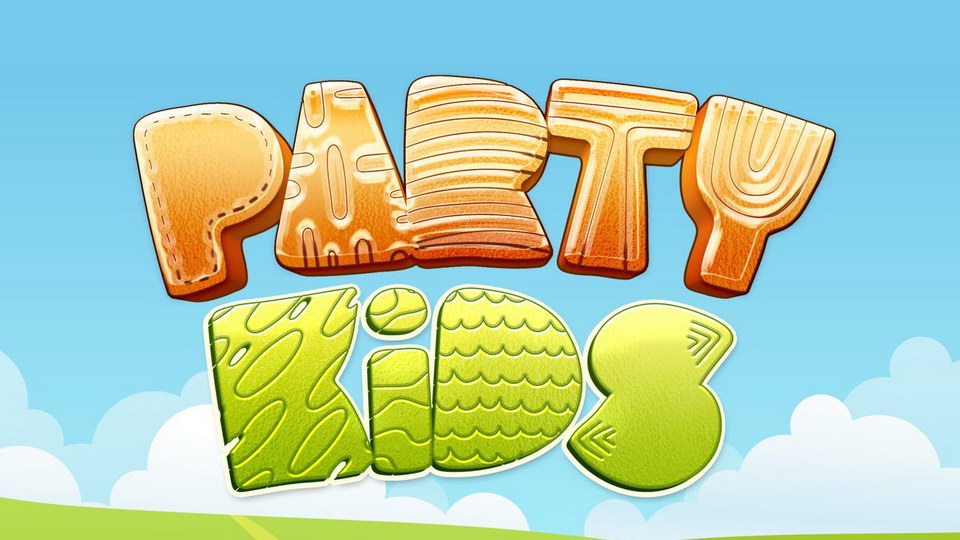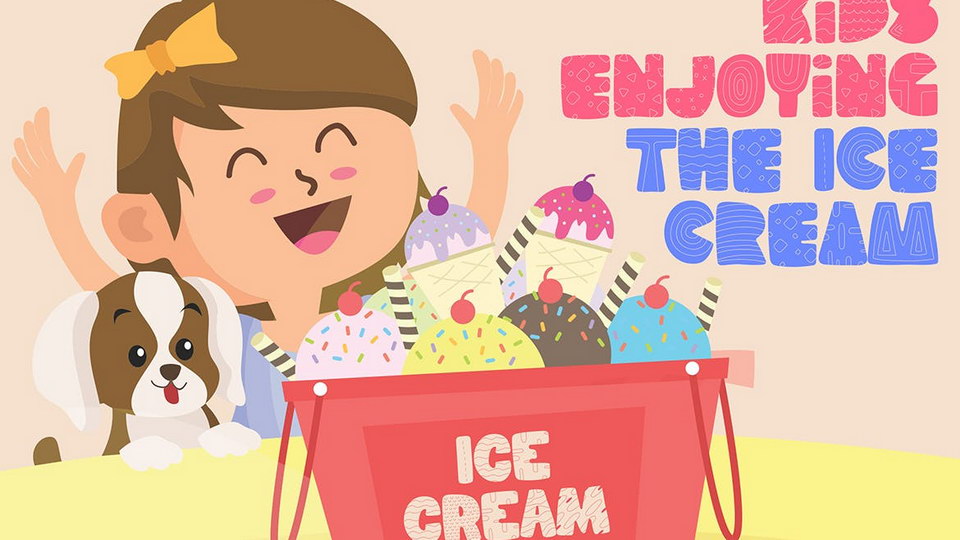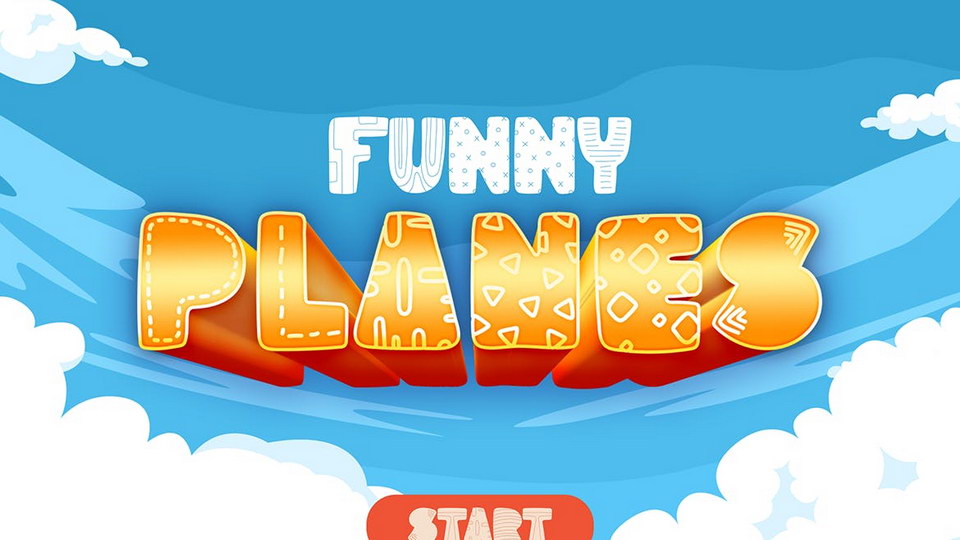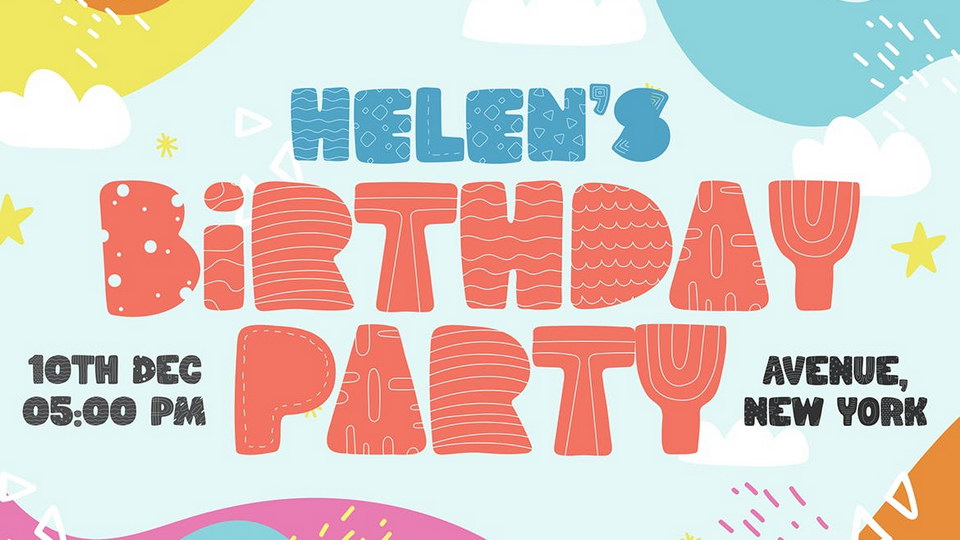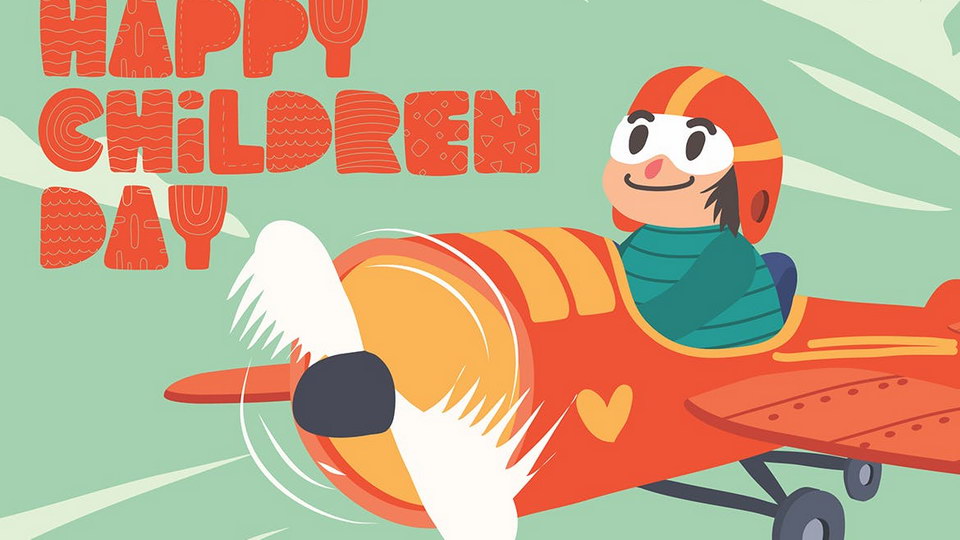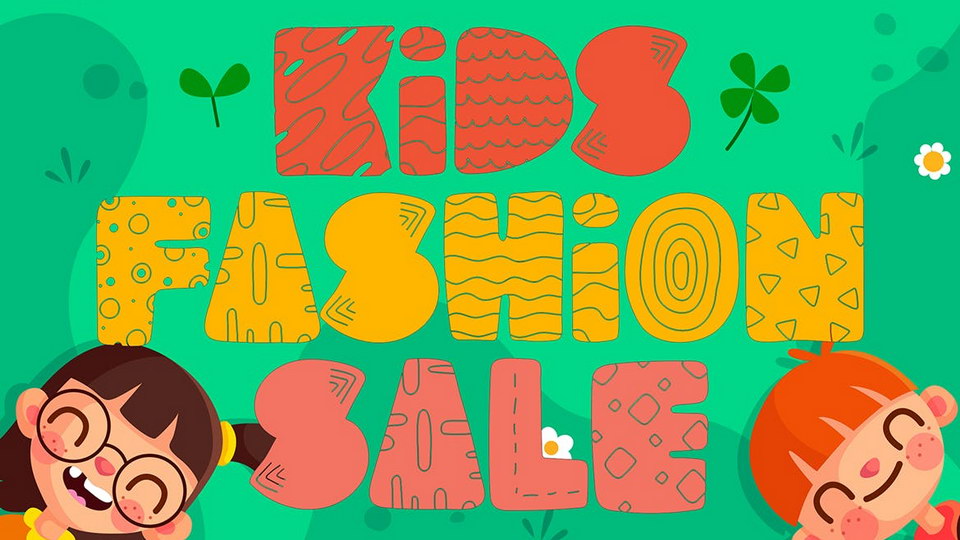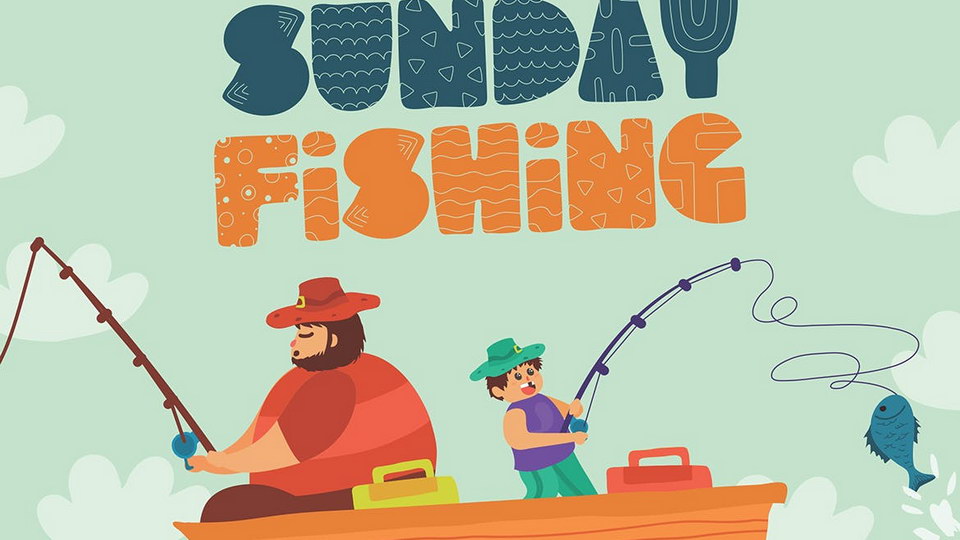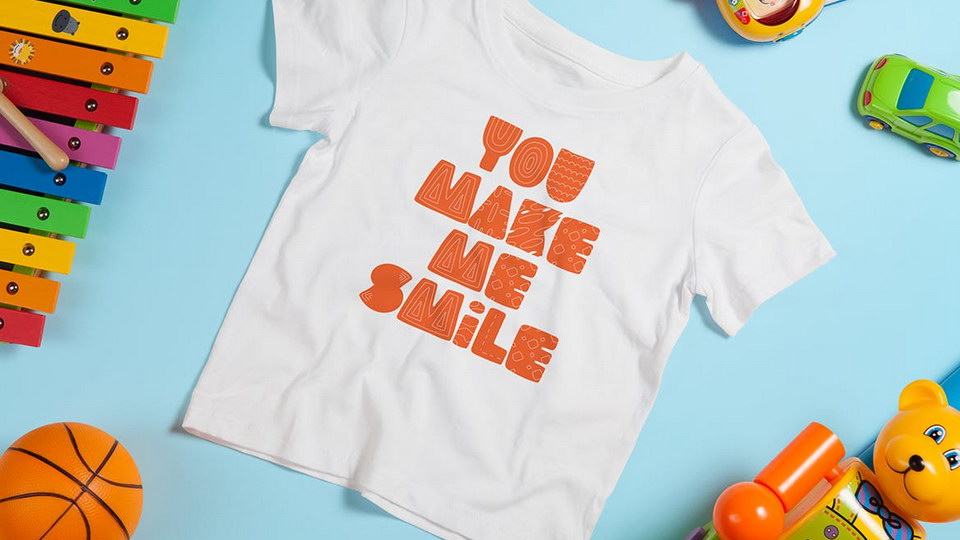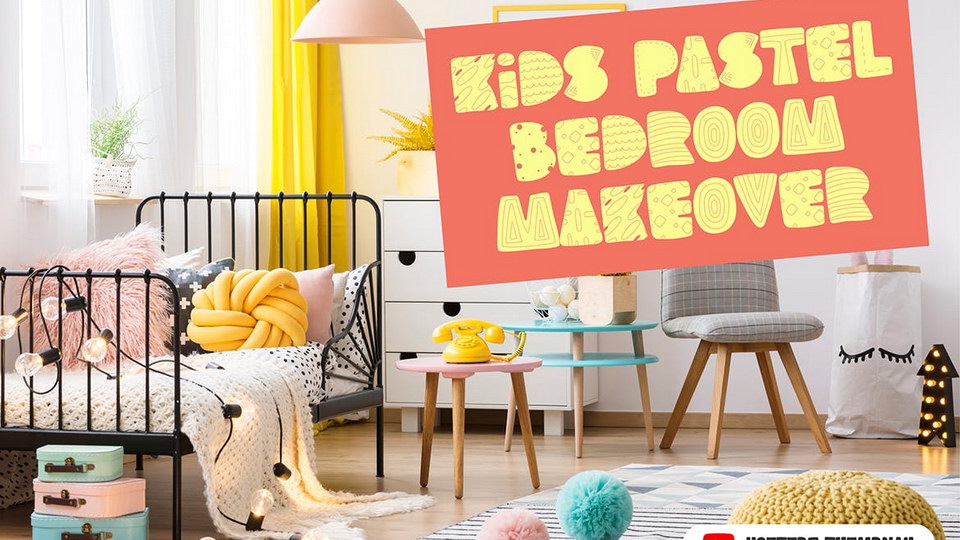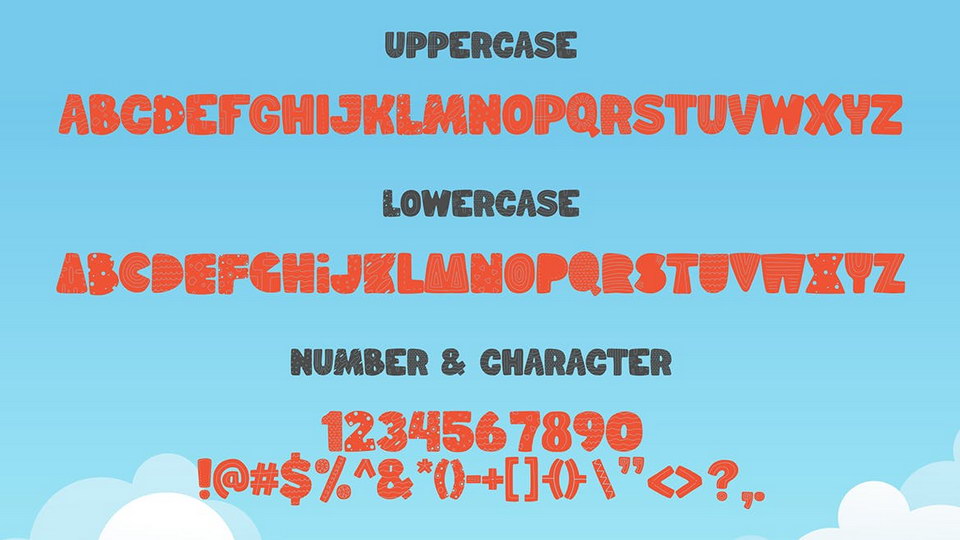
Party Kids – Gaming Font
Blocky shape with ornament in it. It shouting party and fun ambience for the kids. Suit perfectly for Kids niche Online Games, poster, movie title, fast food menu, magazine, youtube covers, youtube thumbnails, social media page covers and so on…